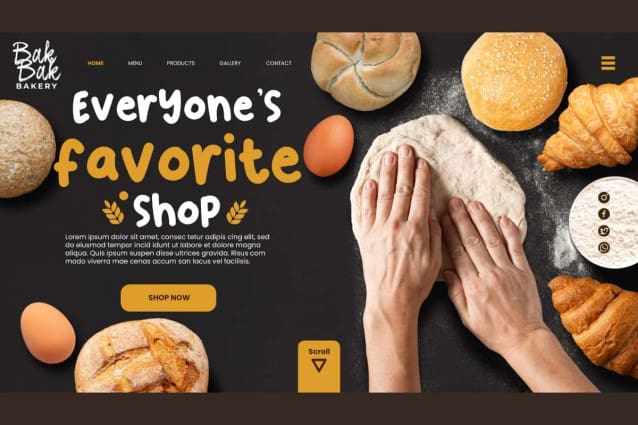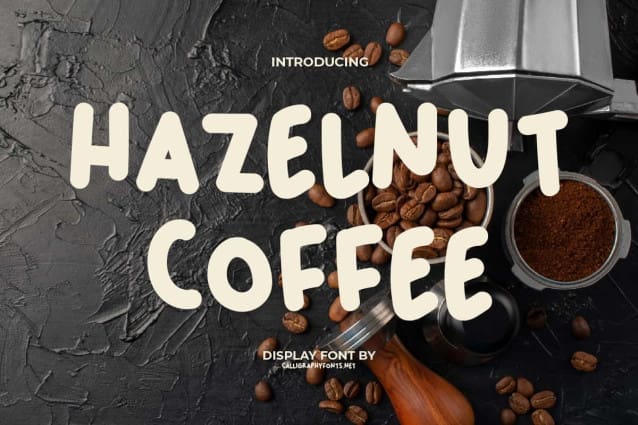
Hazelnut Coffee Font
Hazelnut Coffee Font is a fun comic with a cute and playful bubbly display font inspired from delicious coffee. This font is perfect for apps, banners, blogs, branding, covers, flyer, headers, logos, menu board, mugs, poster, quotes, signage, social media post, stationery, stickers, titles, and more!
Hazelnut Coffee Font is a bold and cheerful display font made a bit messy, this fluffy handcrafted letterform creates a solid and expressive font look. Perfect for ads, animation, bakery, cafes, creator content, culinary, food court, food vlogger, graphic design, handicrafts, photography, restaurant, and many other things.